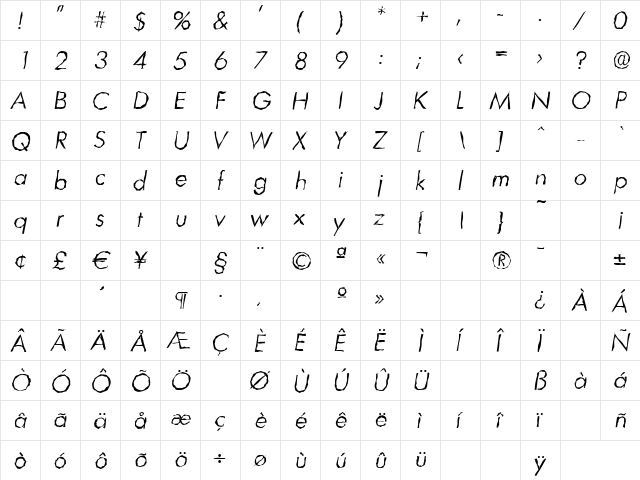
LimerickRandom-Light Italic Font Preview
LimerickRandom-Light Italic
LimerickRandom-Light Italic Font Details
Design Context for LimerickRandom-Light Typeface
LimerickRandom-Light is a composed and adaptable typeface that performs quietly and consistently across a wide range of design contexts. Its italic angle brings a sense of urgency and motion to the letterforms. Its slender proportions lend an understated elegance to any composition.